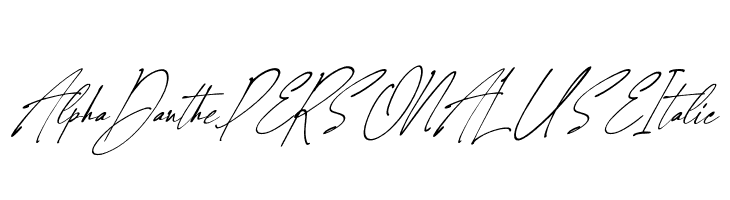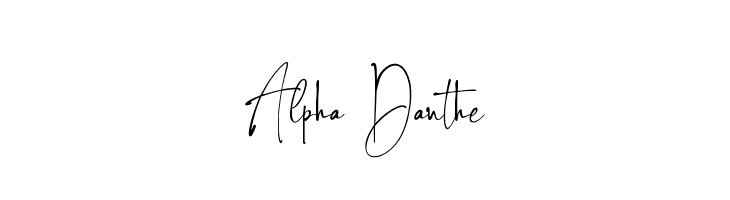
A modern, handwritten font with an artistic and fluid style.
A modern, elegant script font with flowing, cursive strokes.
A graceful and elegant handwritten font with delicate strokes.